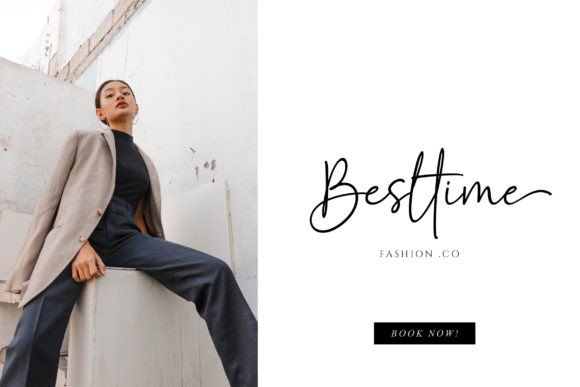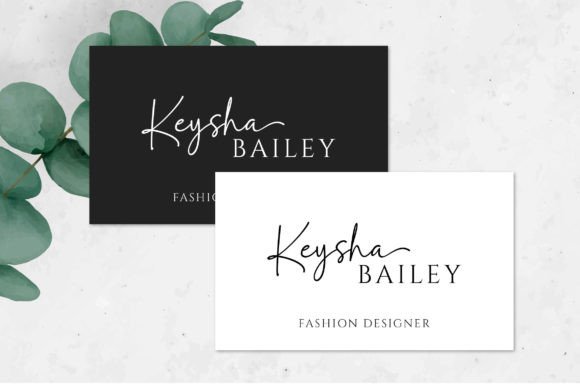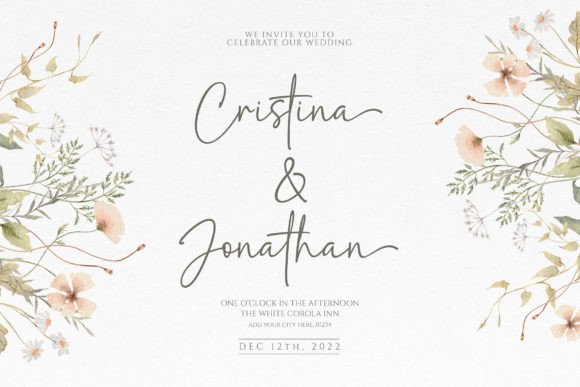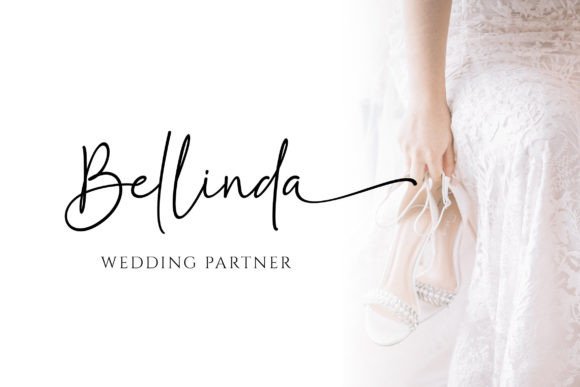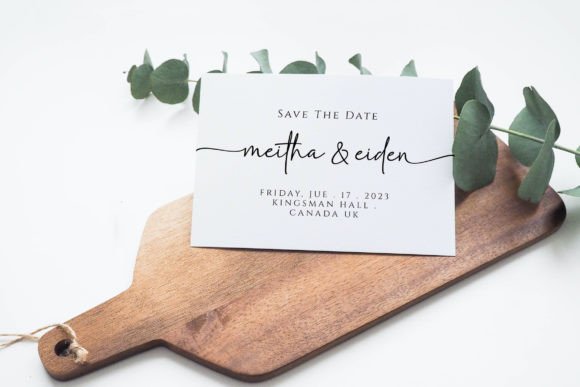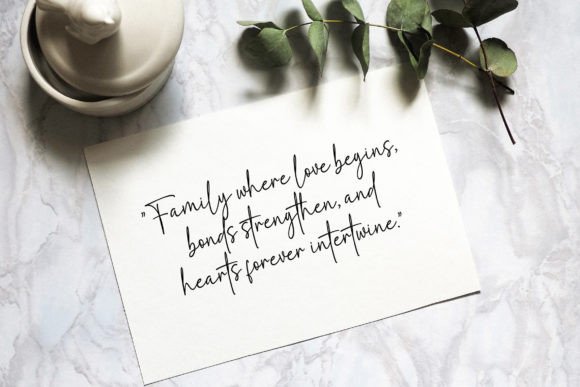
The Ashley Southine Font: A Handwritten Script with a Personal Touch
Have you ever been in the middle of a design project, pouring your heart and soul into every detail, only to hit a roadblock when it comes to choosing the perfect font? I certainly have. And it’s frustrating. But what if I told you that I’ve discovered a beautiful handwritten script font that can add an elegant and personal touch to your designs? Say hello to the Ashley Southine font!
A Personal Design Moment: Finding the Perfect Font
I recall working on a wedding invitation project for a dear friend. The design was going great, but I just couldn’t find a font that captured the warm and intimate feel we were going for. That’s when I stumbled upon the Ashley Southine font. Its natural, handwritten strokes and elegant curves immediately caught my eye. It was as if the font was speaking directly to me, saying, “Hey, I’m here to help you create something beautiful!”
So, what makes the Ashley Southine font so special? Here are a few things I love about it:
- ✨ Elegant and personal touch: The font offers a unique, handwritten feel that’s perfect for designs that require a personal touch.
- ✅ Natural and warm: The strokes and curves of the font create a warm and inviting atmosphere that’s ideal for wedding invitations, greeting cards, and more.
- 🌈 Versatile: The font is suitable for a wide range of design projects, from brand logos to social media graphics.
Now, let’s talk about a few quirks to keep in mind:
- 🤔 Limited use in small sizes: Due to its handwritten nature, the font may not be the best choice for small text sizes or body copy.
- ⚠️ Kerning issues: As with any font, you may need to adjust the kerning to ensure that the letters flow smoothly.
- Experiment with the font’s OpenType features, such as Stylistic Alternates and Glyphs, to add more personality to your design.
The Designer Inspiration Behind Ashley Southine
The Ashley Southine font was inspired by the beauty of handcrafted strokes and the elegance of handwritten scripts. The designer behind this beautiful font wanted to create a typeface that would add a personal touch to any design project. And I think they succeeded!
| What is the Ashley Southine font best used for? | The Ashley Southine font is ideal for designs that require a personal touch, such as wedding invitations, greeting cards, brand logos, and more. |
| Is the Ashley Southine font suitable for body copy? | While the font is beautiful, it’s not the best choice for body copy due to its handwritten nature. It’s better suited for headlines, titles, and short text passages. |
In conclusion, the Ashley Southine font is a beautiful, handwritten script font that can add an elegant and personal touch to your designs. With its natural, warm strokes and elegant curves, it’s perfect for designs that require a human touch. So go ahead, give it a try, and see how it can elevate your designs!